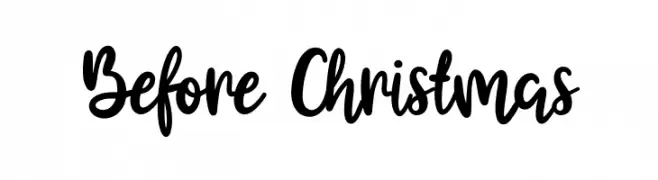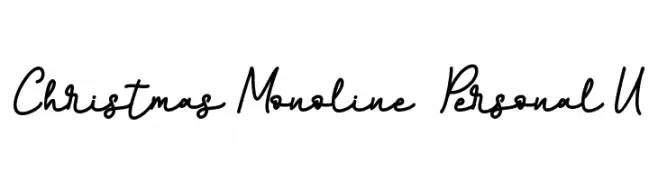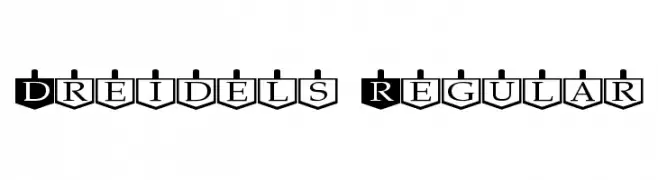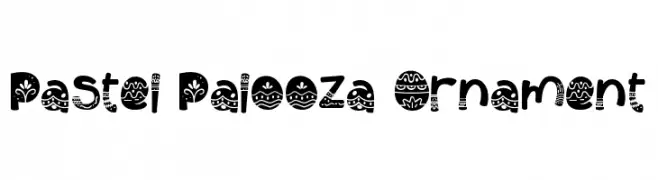
( Fonts by Scratchones )
A playful, festive font with a hand-drawn, decorative style.
( Fonts by PutraCetol Studio )
A playful, ornamented font with intricate patterns and festive motifs.
( Fonts by PutraCetol Studio )
A playful font with bunny ear embellishments, perfect for festive and cheerful designs.
( Fonts by Letterara )
Handwritten monoline script with a festive feel.
( Fonts by Aquariid Design )
Bold, playful handwritten script with connected letters.
( Fonts by Altsys Metamorphosis )
A playful font with characters enclosed in dreidel shapes, ideal for festive themes.